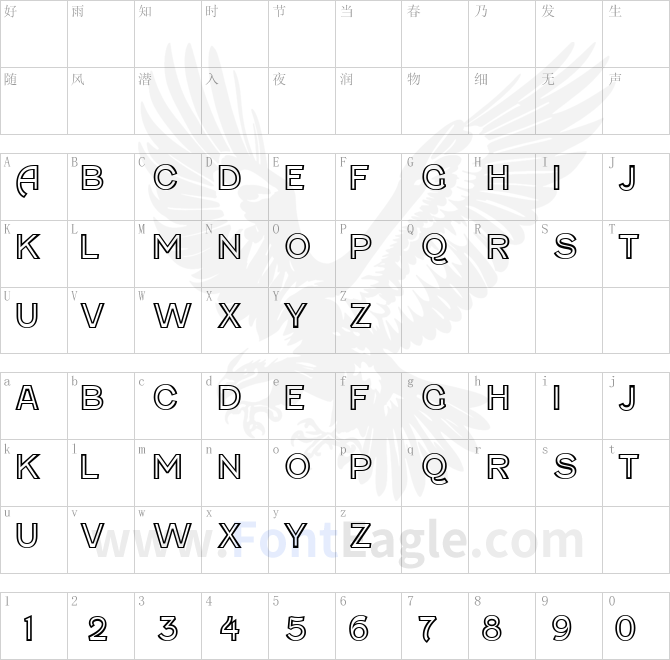
- Font name:Fenwick Outline Free
- Font Subfamily ID:Typodermic: Fenwick Outline Free: 2004
- Font Full Name:Fenwick Outline Free
- Font Version:Version 1.001 2004
- Postscript:FenwickOutlineFree